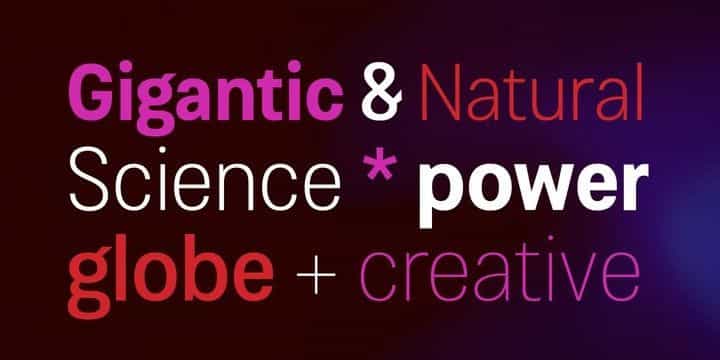
Cosima Font A thick narrow typeface with a delicate sans-serif can help you create more eye-catching and memorable titles and headlines in your designs, a clean font with regular and outline versions packed with alternate and ligature characters. It is a very useful font and looks good at both large and small sizes. Cosima Sans is a universal typeface with a hint of sophistication; it is designed by Anita Jürgeleit.